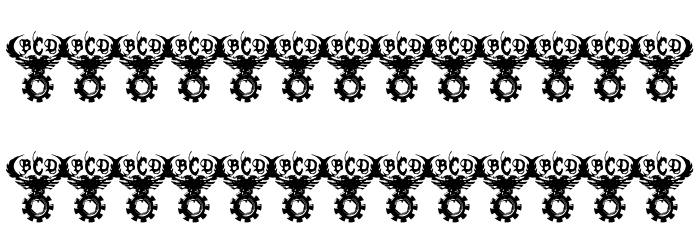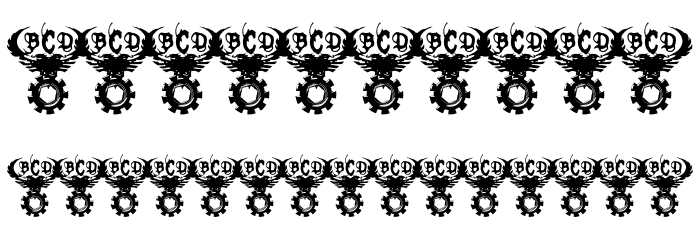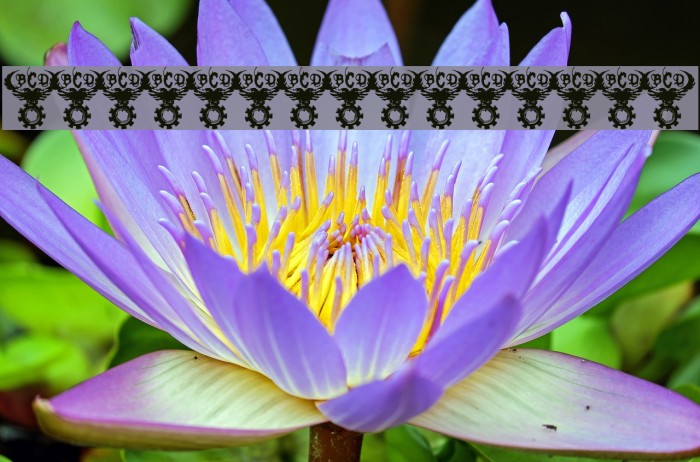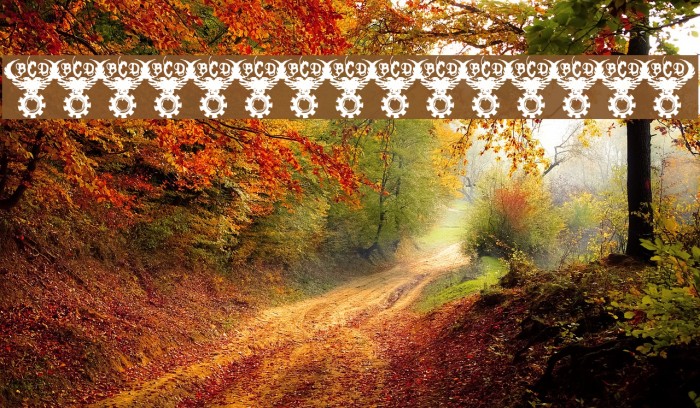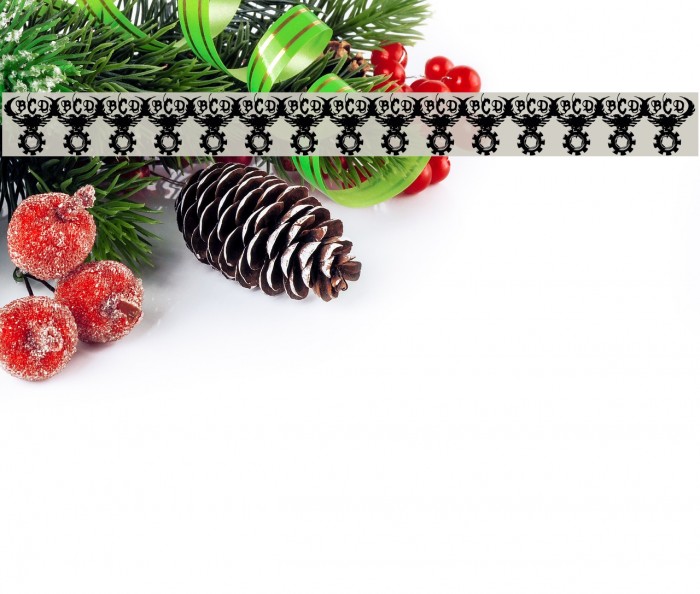
TEK HED BOLIMIC Font
This design features a highly decorative and intricate pattern, incorporating elements that resemble gears and mechanical motifs. The letters are embedded within these complex designs, creating a bold and industrial aesthetic. The overall appearance is reminiscent of steampunk or mechanical themes, with a strong emphasis on symmetry and repetition. The use of black and white enhances the stark contrast and highlights the detailed craftsmanship of each character. This style is not suitable for traditional text but serves as an artistic representation, ideal for thematic projects that require a unique and eye-catching visual element.
A decorative, gear-themed design with an industrial and steampunk aesthetic.
- Proposed Projects: Ideal for steampunk-themed events, industrial design projects, or as a decorative element in graphic design.
- Use Case: Logos, Decorative elements